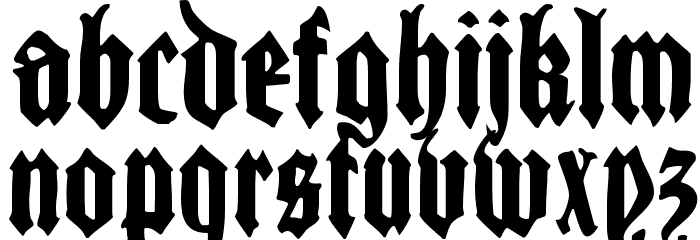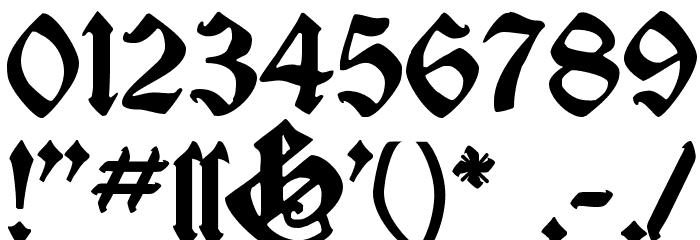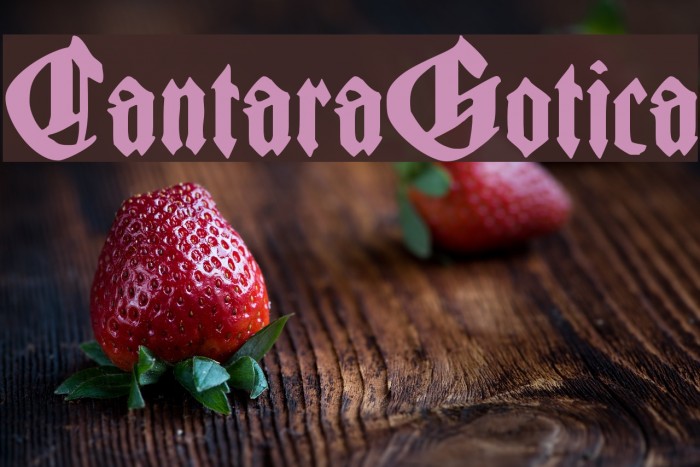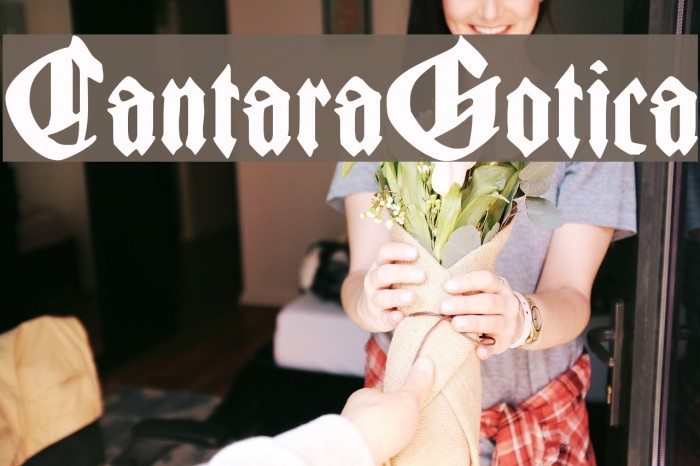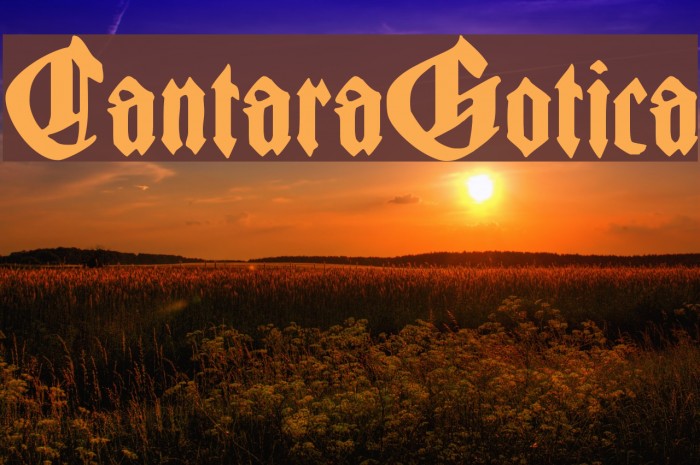
CantaraGotica Font
This font embodies the traditional Blackletter style, characterized by its intricate and ornate design. The letters are bold and dramatic, with sharp, angular lines and elaborate curves that give it a distinctive medieval appearance. The uppercase letters are particularly striking, with their tall, narrow forms and pointed serifs. The lowercase letters maintain the same level of detail, ensuring consistency across the alphabet. Numbers and special characters are equally stylized, making this font ideal for creating a cohesive and visually impactful design. The overall aesthetic is both historical and artistic, perfect for projects that require a touch of elegance and sophistication.
A bold, intricate Blackletter font with dramatic, angular lines and ornate details.
- Proposed Projects: Ideal for historical documents, wedding invitations, book covers, or any project requiring a medieval or gothic aesthetic.
- Overall Style: Vintage
- Use Case: Logos, Headlines, Decorative text